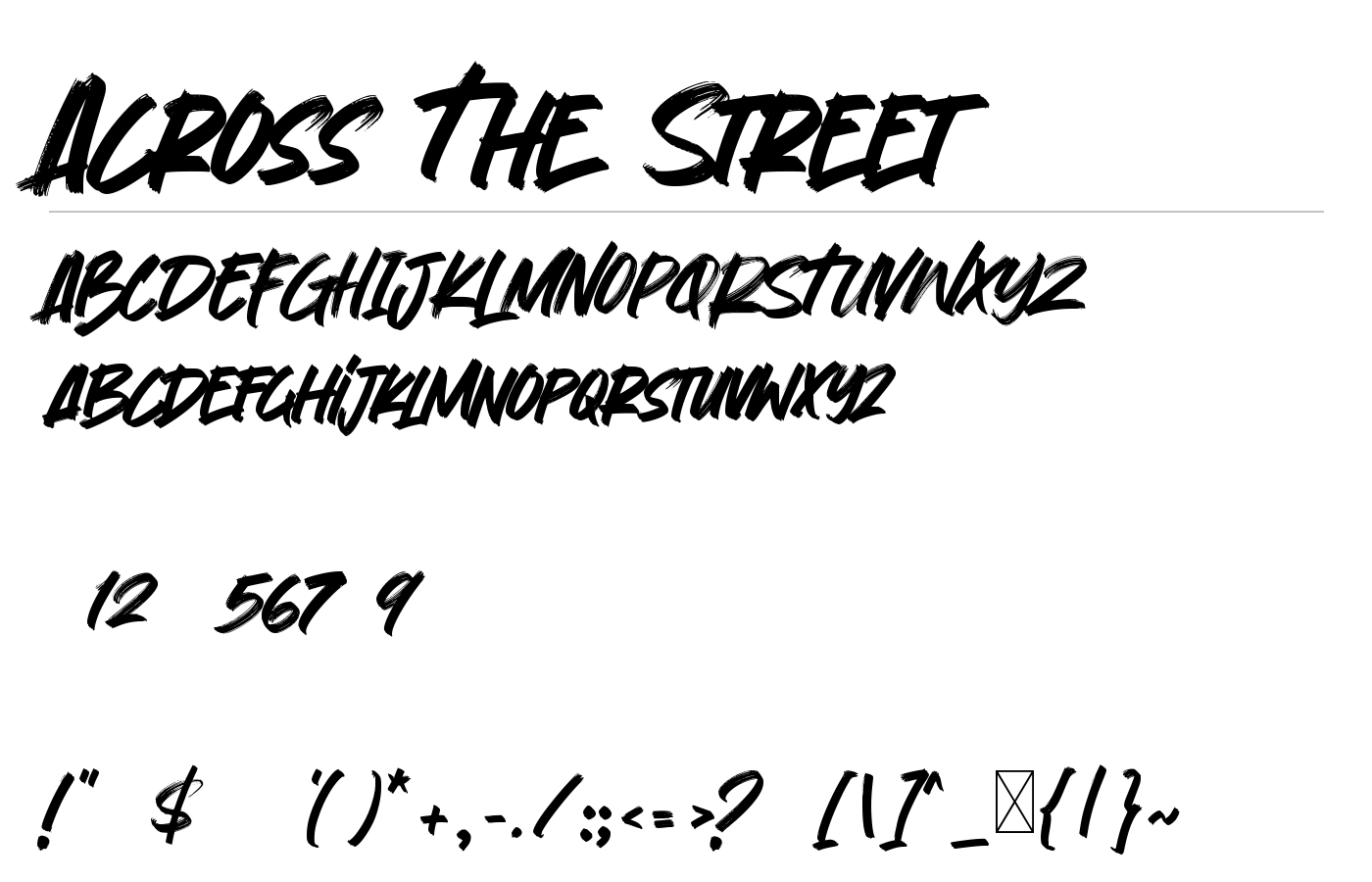
Across The Street is a bold, energetic brush script font with a strong handwritten feel, featuring rough, textured strokes that create a dynamic and casual look. Its irregular, slightly condensed letterforms and lively style make it perfect for creative, urban, and expressive designs where personality and spontaneity are key. This font works well for eye-catching headlines, logos, posters, and social media graphics that need a bold, artistic touch.
Across The Street Font
About Across The Street Font
| Font family | Across The Street Font |
| Designer | Anang F & Malik Wsn | Gassstype© Studio 2021 |